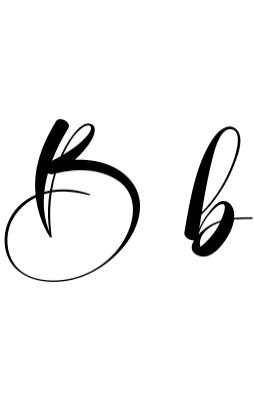
Bustling Font: Elevate Your Creative Projects with a Unique Handwritten Style
In the world of typography, fonts play a crucial role in conveying the tone and personality of a brand or creative project. With numerous font styles available, it can be challenging to find the perfect one that stands out from the crowd. However, if you’re looking for a font that exudes energy, playfulness, and uniqueness, look no further than Bustling Font. In this article, we’ll explore the features and benefits of Bustling Font, and how it can elevate your creative projects to the next level.
What is Bustling Font?
Bustling Font is a handwritten font that combines thin and bold lines to create a distinctive and eye-catching style. This font is perfect for creative projects that require a lively and energetic feel. The mix of thickness gives Bustling Font a playful and unique look, making your text stand out from the rest.
Key Features of Bustling Font
- Handwritten style: Bustling Font has a warm and personal touch, making it perfect for projects that require a human feel.
- Thin and bold lines: The combination of thin and bold lines creates a visually appealing contrast that adds depth and interest to your text.
- Energetic and lively style: Bustling Font is designed to convey energy and playfulness, making it perfect for creative projects that require a youthful and vibrant feel.
- Playful and unique look: The mix of thickness gives Bustling Font a distinctive and eye-catching style that sets it apart from other fonts.
Benefits of Using Bustling Font
Bustling Font offers several benefits that make it an excellent choice for creative projects. Here are some of the advantages of using Bustling Font:
Why Choose Bustling Font?
- Attention-grabbing: Bustling Font is designed to grab attention and make your text stand out from the crowd.
- Versatile: This font is suitable for a wide range of creative projects, from branding and advertising to packaging and digital media.
- Easy to read: Despite its playful and unique style, Bustling Font is easy to read and understand, making it perfect for body text and headlines.
- Customizable: Bustling Font can be customized to fit your project’s specific needs, allowing you to adjust the size, color, and style to suit your brand’s identity.
How to Use Bustling Font in Your Creative Projects
Using Bustling Font in your creative projects is easy and straightforward. Here are some tips on how to make the most of this amazing font:
Tips for Using Bustling Font
- Pair with neutral fonts: Pair Bustling Font with neutral fonts to create a balanced and harmonious look.
- Use for headlines and titles: Bustling Font is perfect for headlines and titles, where its playful and unique style can shine.
- Experiment with colors: Try out different colors and gradients to add depth and interest to your text.
- Adjust font size: Adjust the font size to create visual hierarchy and emphasize important information.
In conclusion, Bustling Font is an excellent choice for creative projects that require a unique and energetic style. Its handwritten style, thin and bold lines, and playful look make it perfect for a wide range of applications. With its attention-grabbing and versatile nature, Bustling Font is sure to elevate your creative projects to the next level. So why not give it a try and experience the benefits of Bustling Font for yourself?